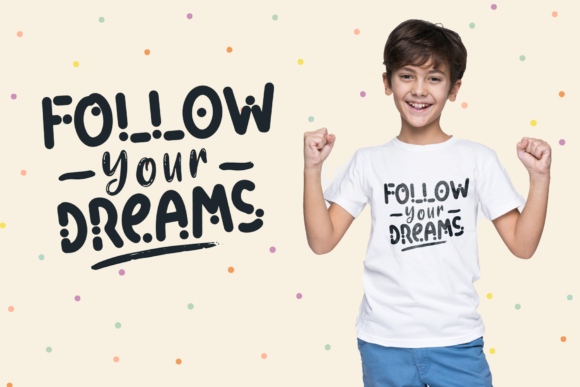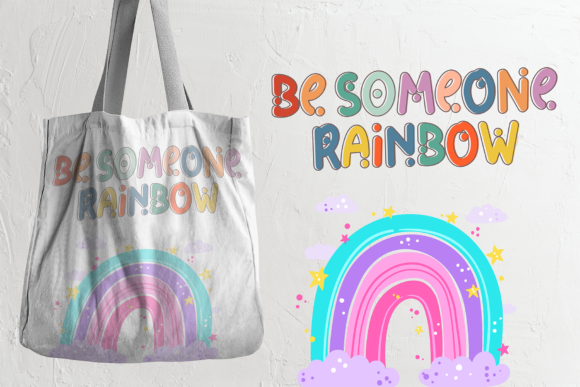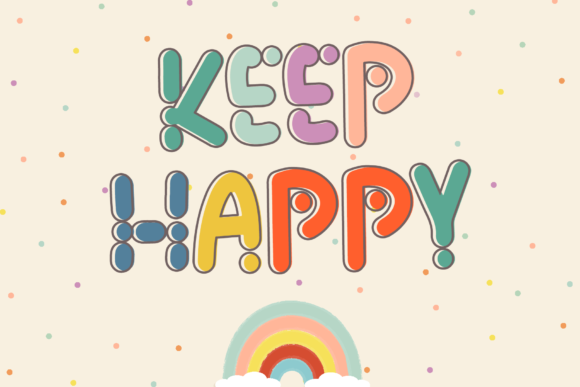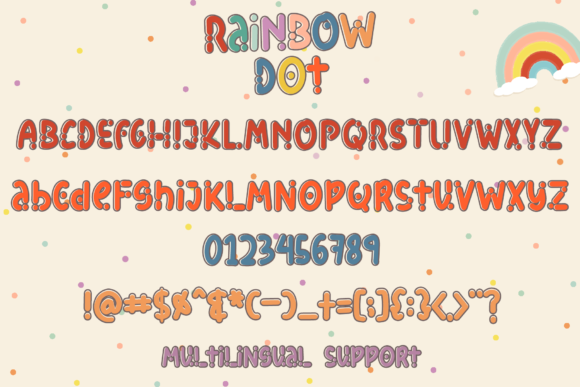
Introduction to Rainbow Dot Font
Have you ever stumbled upon a design that makes you go ‘wow’? That’s exactly what happened when I first laid eyes on the Rainbow Dot Font. I was working on a creative project, brainstorming ideas for a colorful flyer, when I came across this adorable font. Its playful dots and vibrant colors instantly caught my attention, and I knew I had to incorporate it into my design. The Rainbow Dot Font is more than just a font – it’s a design resource that adds a touch of magic to any project.
As a designer, you’re always on the lookout for high-quality resources to elevate your work. The Rainbow Dot Font is a free download that’s perfect for any creative project. With its transparent background, you can easily layer it over your designs without worrying about any background noise. Whether you’re working on a poster, social media graphic, or even a logo, this font is sure to bring a smile to your face and a pop of color to your design.
What sets the Rainbow Dot Font apart from other display fonts is its versatility and charm. It’s a great addition to any design project, and with its cute and jolly vibe, it’s sure to bring a sense of fun and playfulness to your work. So why settle for a boring font when you can have a rainbow of options? Let your imagination run wild with the Rainbow Dot Font and take your designs to the next level!
Key Features of Rainbow Dot Font
- Unique and colorful design, ideal for creative projects and adding a playful touch to your work
- High-quality font with a transparent background, making it easy to use in various design contexts
- Includes a range of characters, including uppercase and lowercase letters, numbers, and punctuation marks
- Perfect design resource for designers, artists, and anyone looking to add a creative twist to their work
Honest Review: Rainbow Dot Font
I recently stumbled upon the Rainbow Dot Font and I’m excited to share my thoughts on this unique design resource. With a free download option, this high-quality font is perfect for creative projects that require a touch of whimsy and playfulness.
- Transparent background, making it easy to layer with other design elements
- High-quality design that’s sure to add a creative touch to any project
- Unique and playful style that’s perfect for branding, graphics, and more
- May not be suitable for formal or professional projects due to its playful nature
- Some users may find the font too bold or overwhelming, especially when used in large quantities
Overall, I’m impressed with the Rainbow Dot Font and its potential to add a fun and creative touch to design projects. While it may have some limitations, it’s definitely worth checking out for designers looking for a unique and high-quality design resource.
Tips for Getting the Most Out of Rainbow Dot Font
To get the most out of the Rainbow Dot Font, experiment with different font sizes, colors, and arrangements. You can also combine the font with other design elements, such as images or graphics, to create a visually striking design. Additionally, consider using the font’s transparent background to add a sense of depth and dimension to your design.
The Rainbow Dot Font is perfect for a variety of creative projects, including social media graphics, blog posts, and presentations. Its unique, eye-catching design makes it a valuable resource for designers and non-designers alike, and its transparent background makes it easy to use in a variety of design contexts.